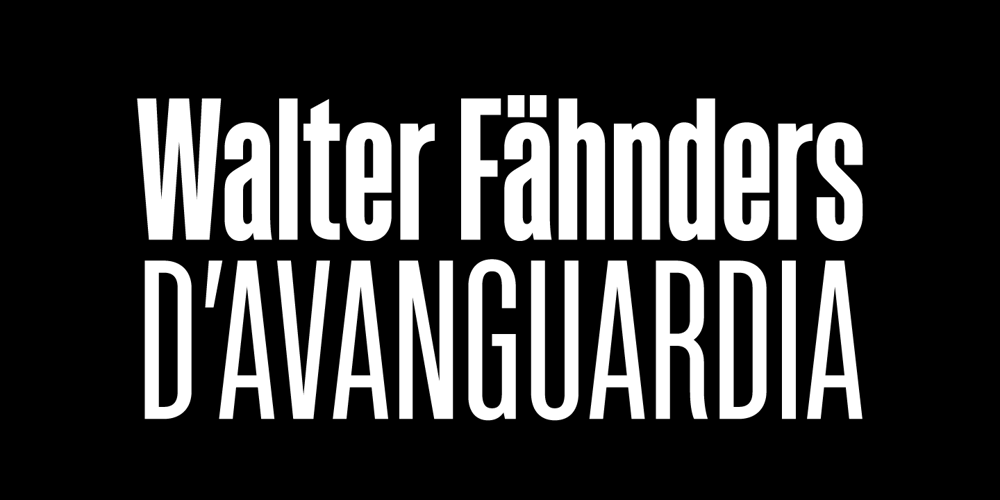
Sorren Ex Font Family was designed by Michael Jarboe and published by Reserves. Sorren Ex contains 4 styles and family package options. Sorren Ex is a slightly less condensed, more robust version of Sorren. Its overall width has been increased to the point just before its rounded forms begin to flatten, retaining the aesthetic essence of the original without compromise. Sorren is a definitive bold condensed sans influenced by neo-grotesque designs. A relatively low stroke contrast complimented with sharp, horizontal stroke ends lend an unyielding appearance, while its rounded forms and refined curves juxtapose its inherent strength with grace. Stylistically, Sorren has a classic, timeless feel with a contemporary finish and attention to detail. It is characteristically more elegant and considerably sturdier than the typical condensed sans, lending to its singular disposition.